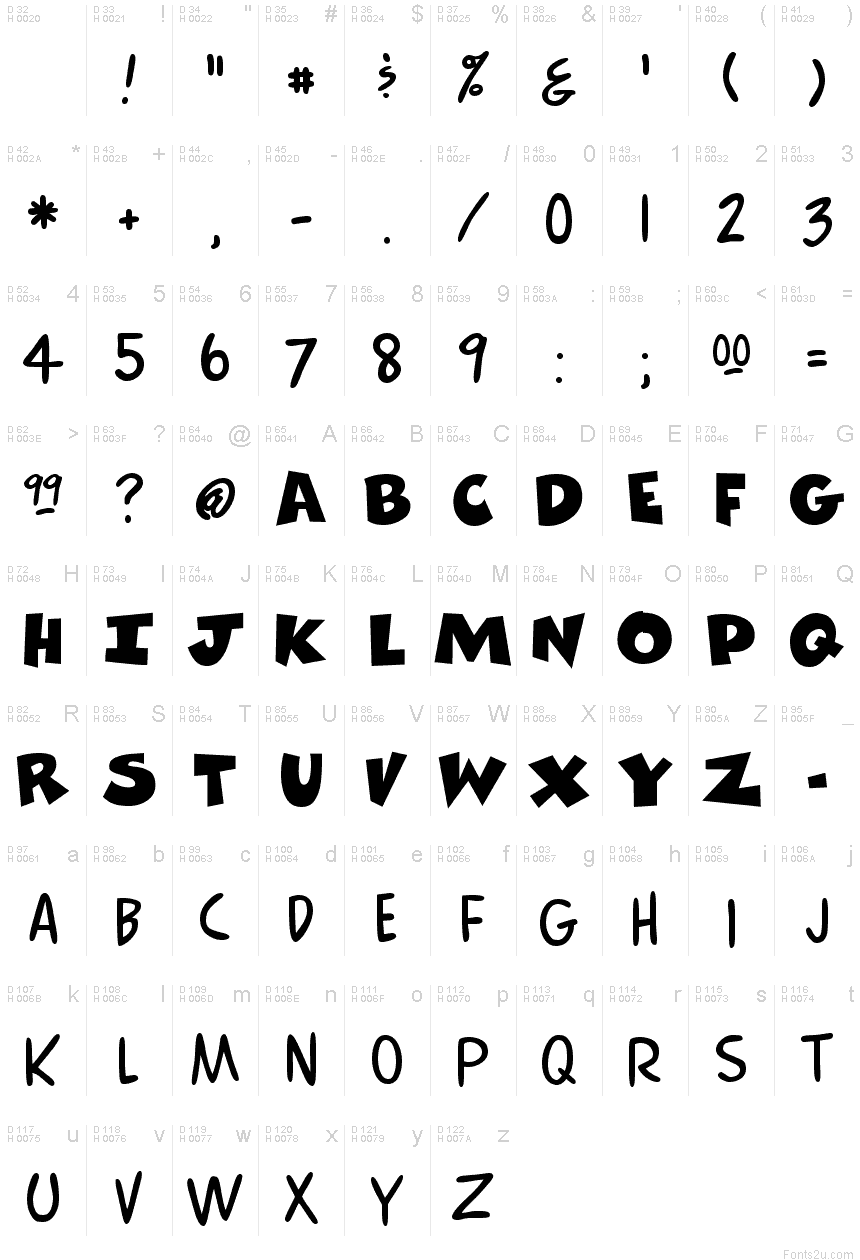
Comics Regular
Comics font by Pat Snyder is a free comic display typeface that finally gives you a relaxed, hand-lettered look without the clumsy feel of typical “comic” fonts. The letters are tall, bouncy, and slightly wobbly, like they were drawn with a thick marker on glossy paper, yet the spacing stays clean and readable. Rounded curves and playful diagonals keep the texture lively, so headlines feel energetic rather than shouty or stiff.
Using Comics, you can bring personality to kids’ book covers, web comics, classroom posters, YouTube thumbnails, event flyers, and playful brand graphics. This free font shines when you set it big and bold, then support it with a simple sans serif for body text. It’s especially strong on colorful backgrounds, where its chunky, inky strokes cut through busy layouts with an easy, friendly voice.